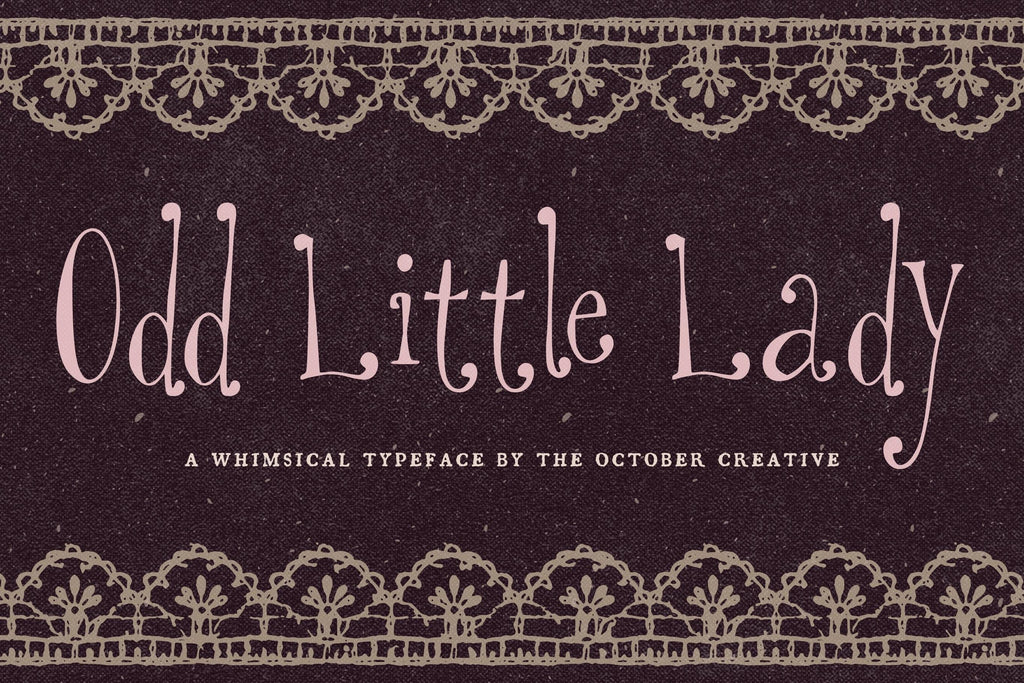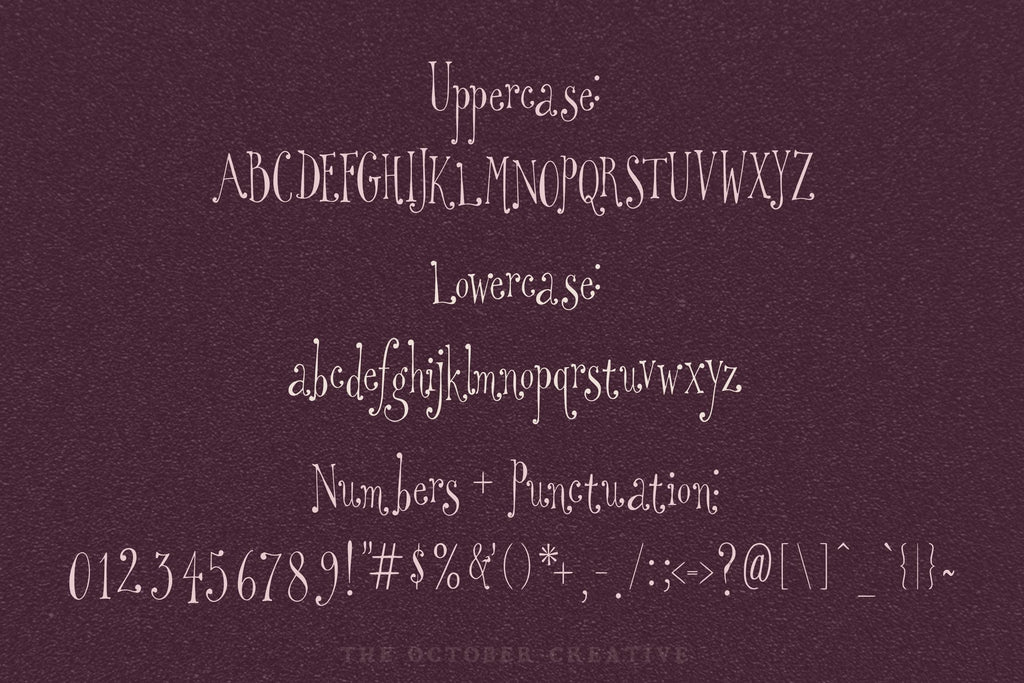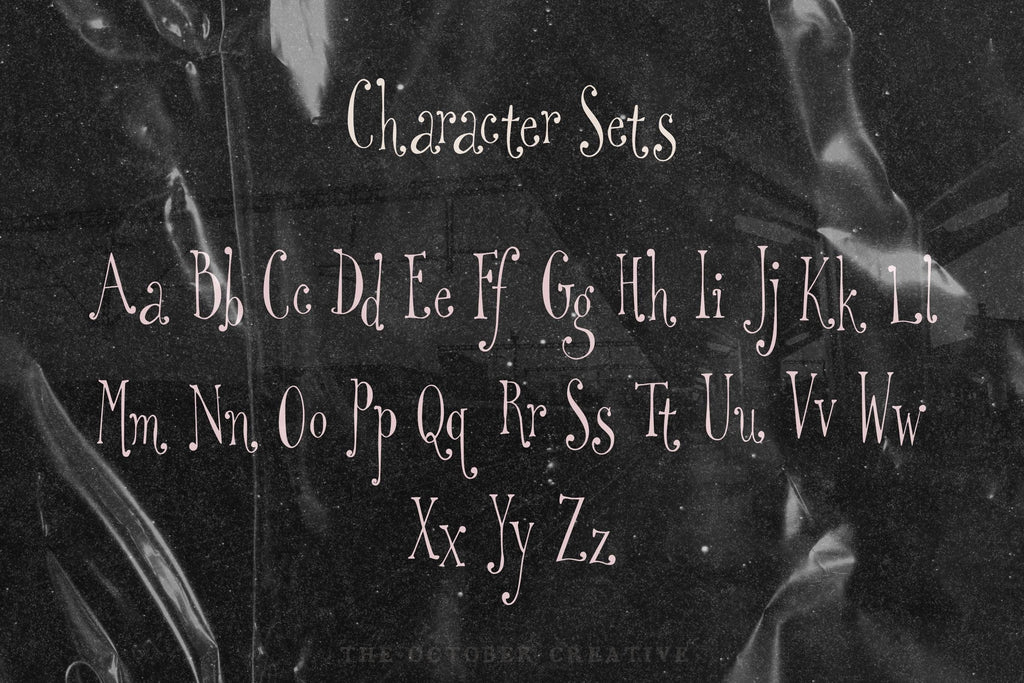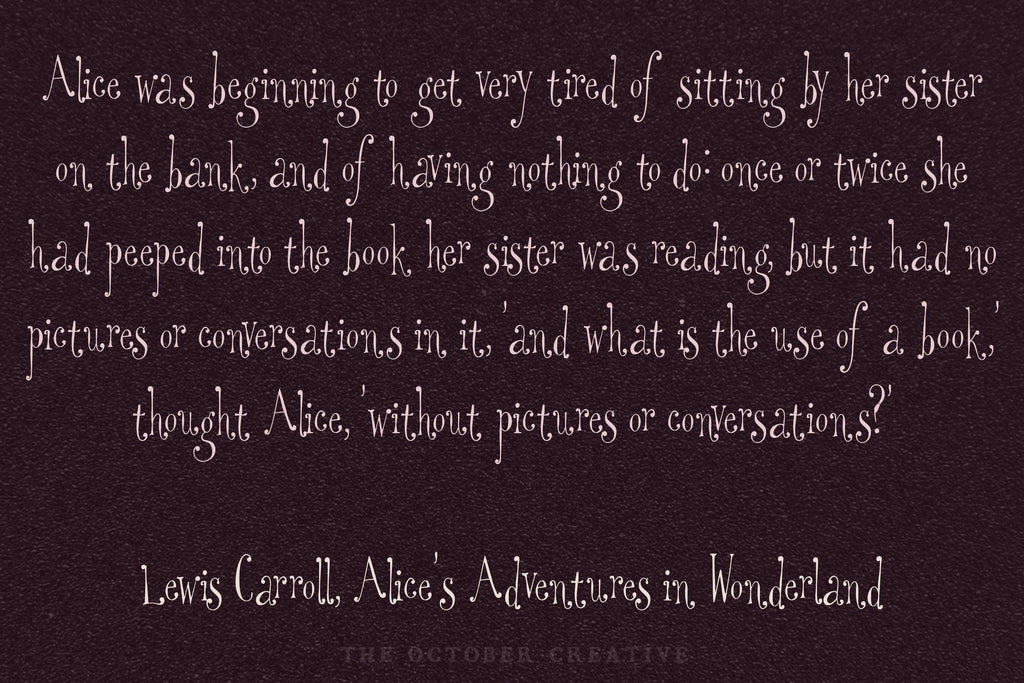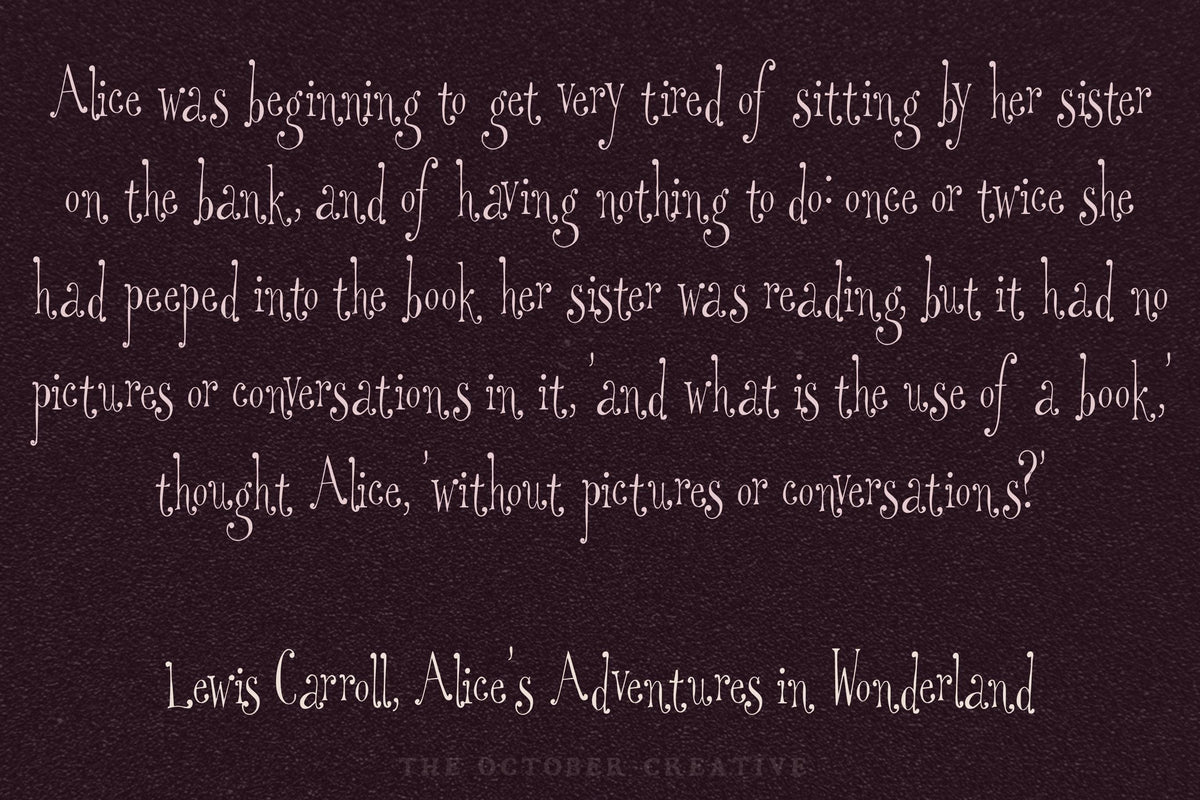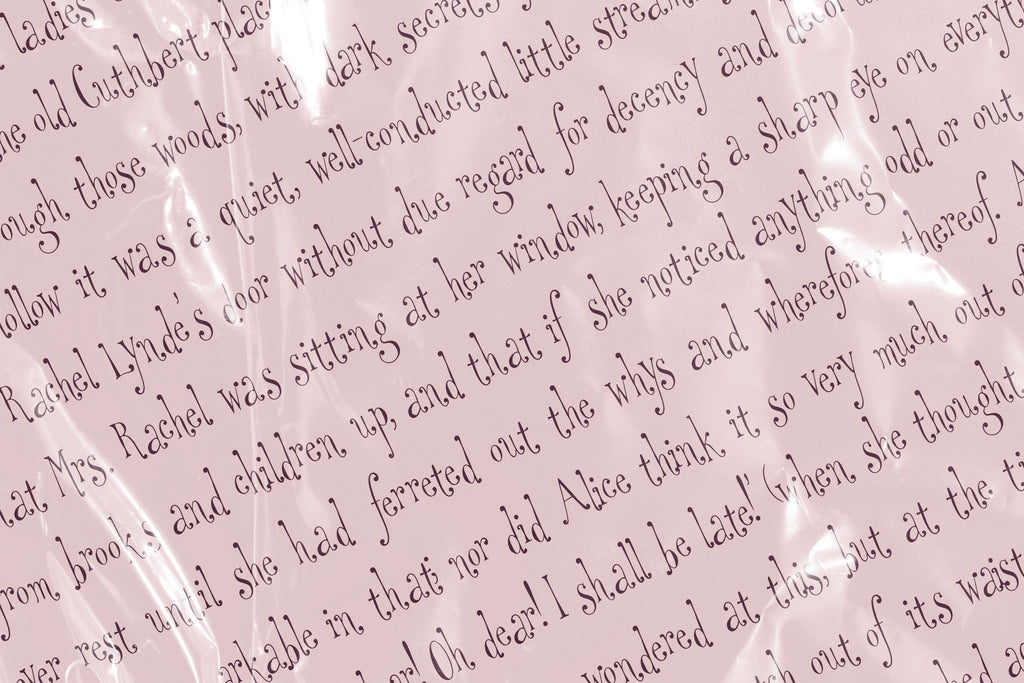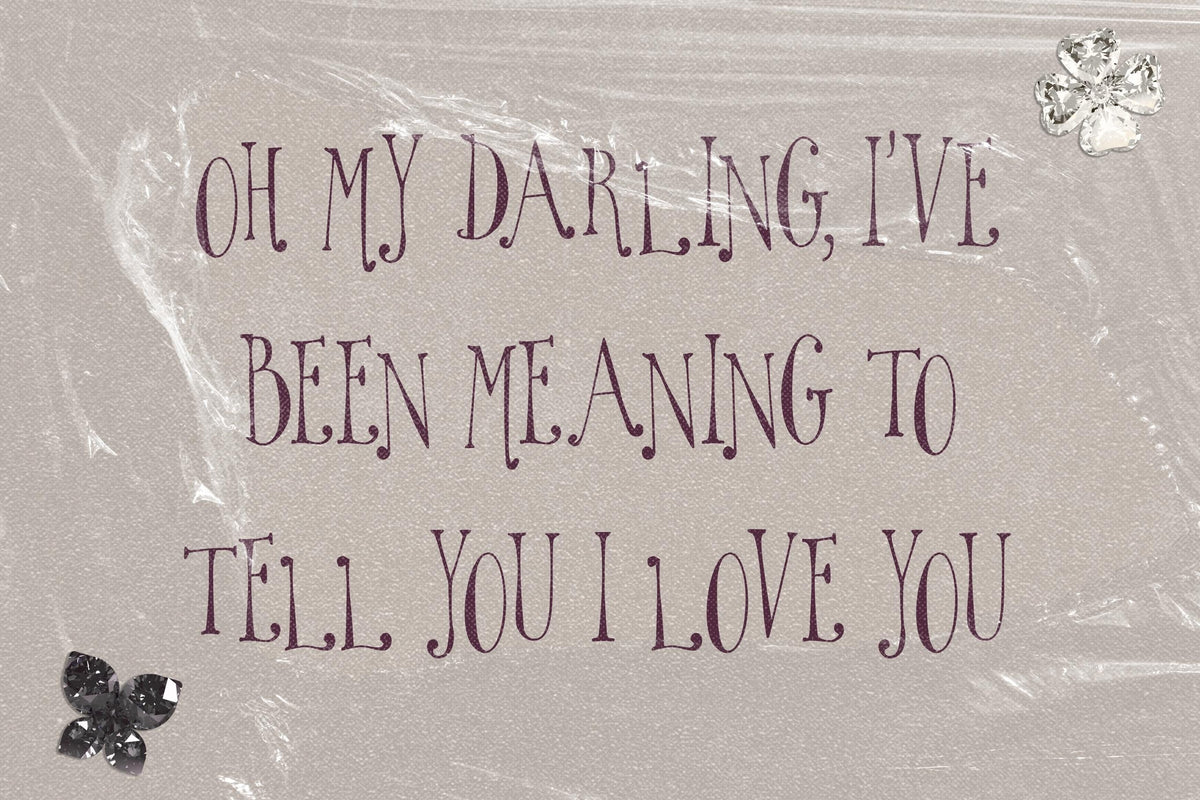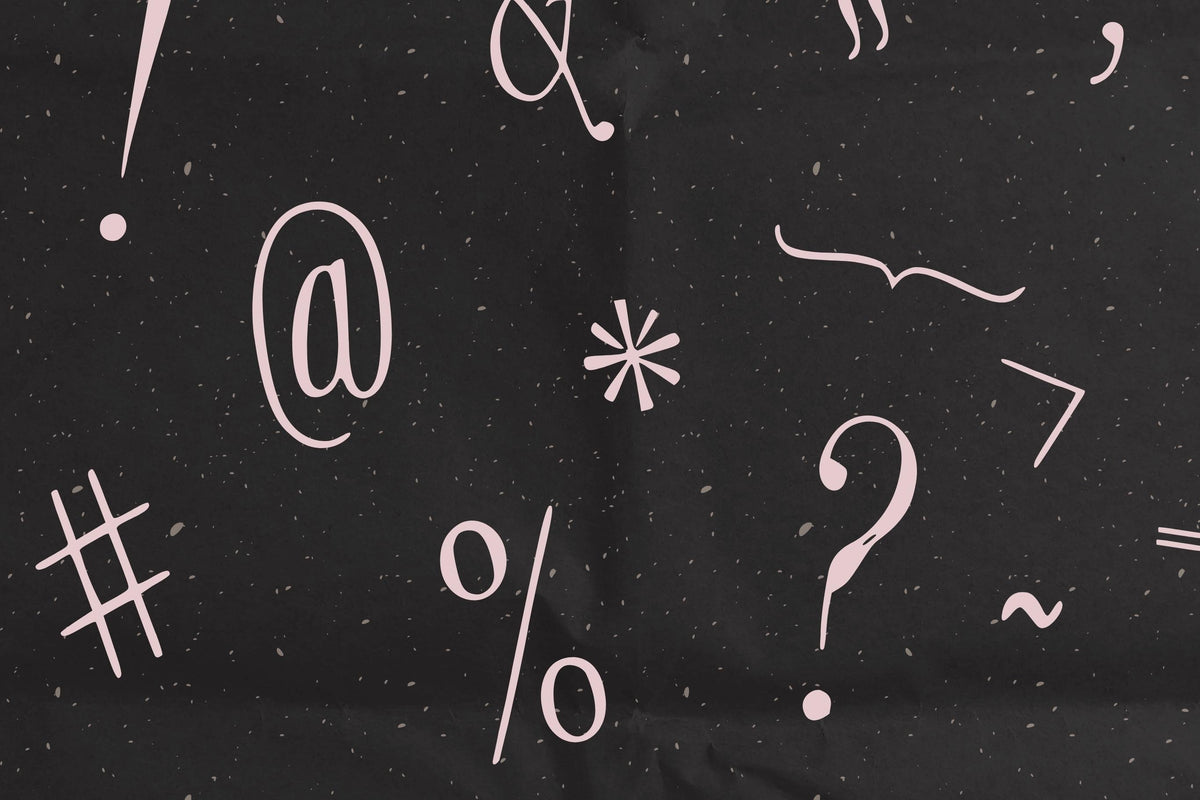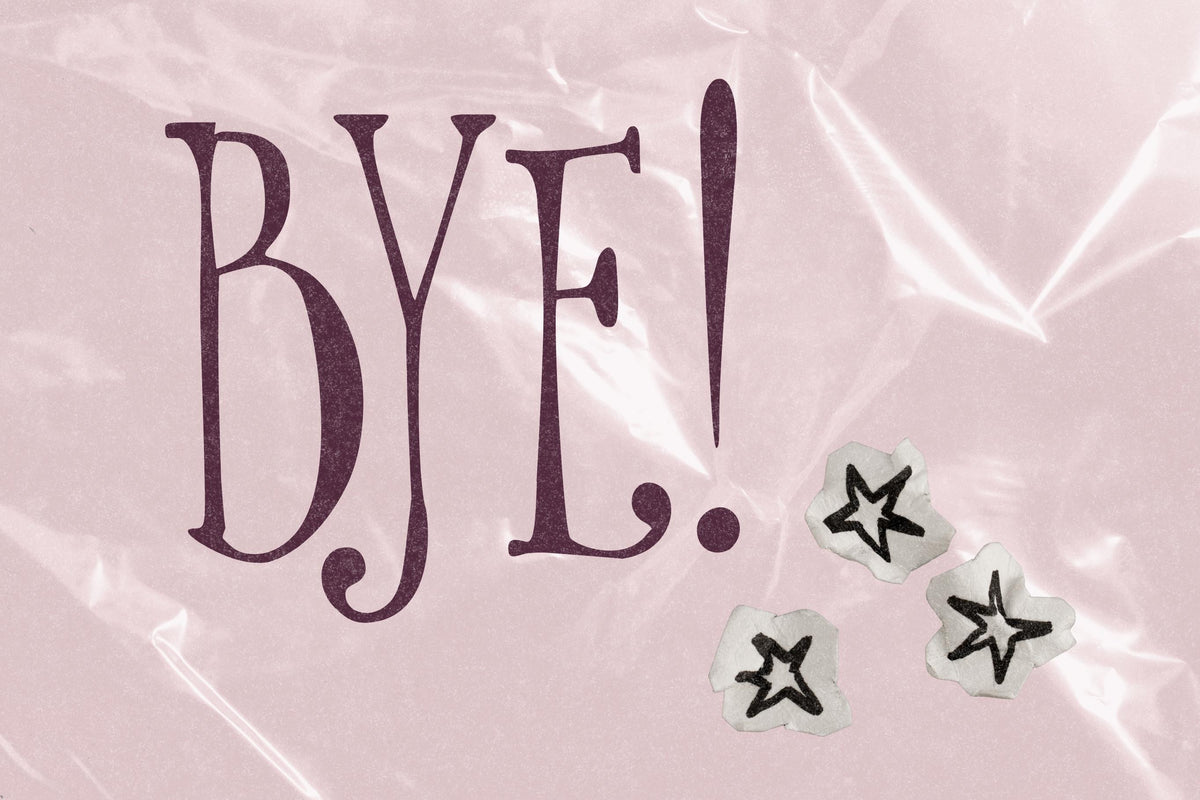
Odd Little Lady Font
Odd Little Lady is a tall, quirky serif font with narrow letters, curled tails, and little swashes on the ends of its strokes. It has an old storybook feel that suits book covers, tea party invitations, journal headings, and labels.
• One style: Odd Little Lady Regular
• Uppercase A to Z, lowercase a to z, numbers 0 to 9, and every standard keyboard punctuation mark and symbol
• Curly quotes and apostrophes, dashes, an ellipsis, and a bullet
• Common accented letters for names, like José, Chloé, Zoë, Renée, and Françoise
• One Regular style, with no alternate characters or ligatures.